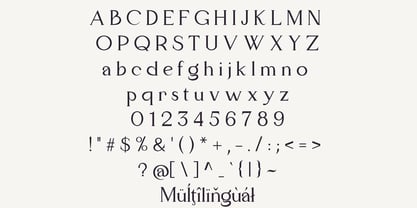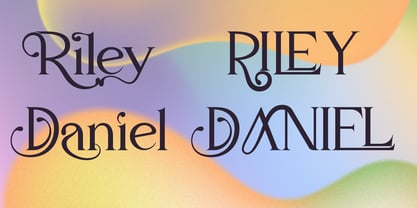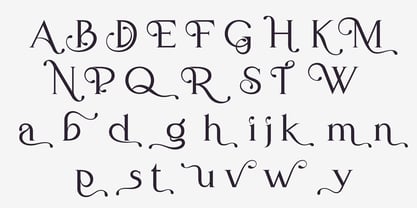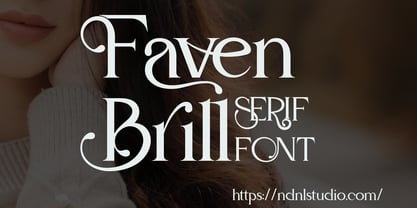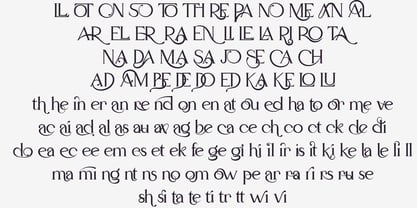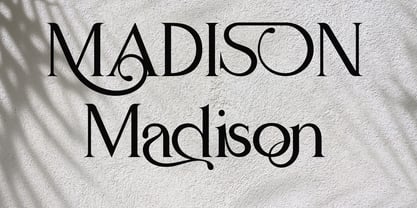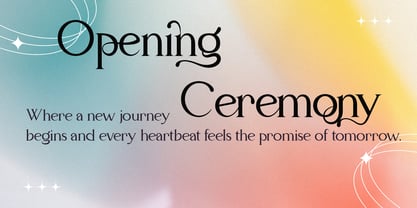
Faven
Faven is a refined serif font that captures both grace and confidence. With its elegant letterforms and subtle artistic touches, it delivers a sense of luxury and sophistication. Perfect for fashion projects, beauty branding, editorial layouts, or wedding designs — Faven Brill adds a distinctive charm that elevates every word into a visual statement. If the software you are using does not fully support OpenType features (such as Stylistic Alternates), you can still access the decorative characters of the font using the following method: Examples: Axx → Decorative A (if available) aX → Decorative a (if available) And also: AxX → Decorative A2 (if available) aXX → Decorative a2 (if available) aXXX → Decorative a3 (if available) To separate ligatures: Insert the shortcut xXx between two characters. ab → axXxb → a b